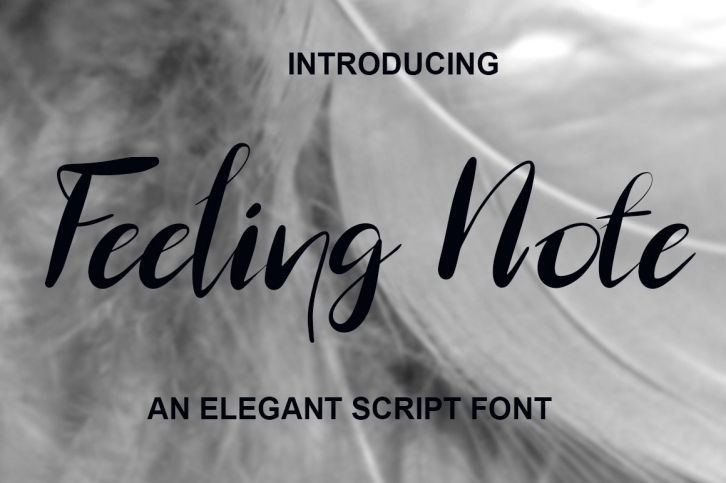
Feeling Note features a delicate flow and an eternal style. It is the best choice for creating eye catching logos, branding and quotes. Every letter has a unique and beautiful touch, which will make your design come alive!